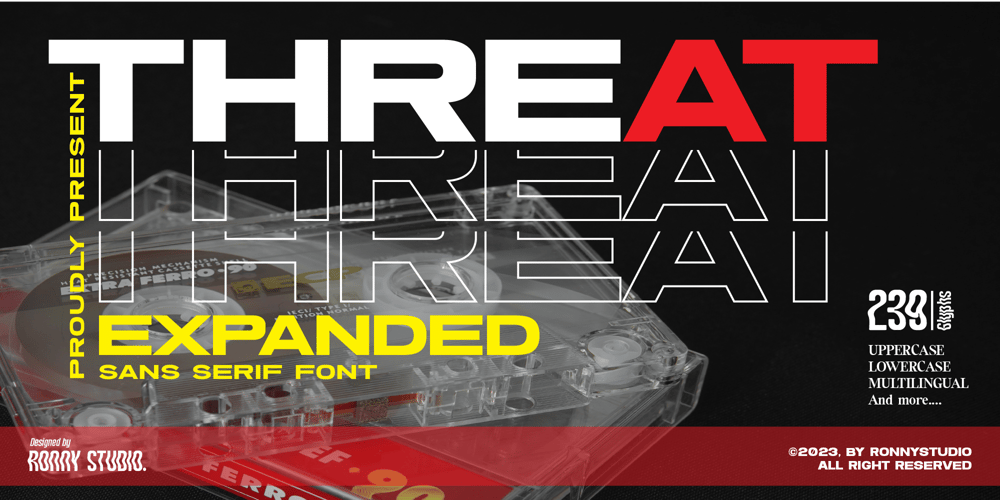
Threat Font Family was designed by Rony Rizki Jaya and published by Ronny Studio. Threat contains 1 styles and family package options. Threat is an all caps font that has a very bold body, but still has high contrast. This font looks very modern when paired with contrasting design colors. This font is impressive and features a clean and elegant font, professionally shaped, and as a result, it will easily match a variety of creations that require a different touch. Add it with confidence to your projects, and you’ll love the results. This typeface is perfect for elegant logos, branding, promotions, book covers, magazine layouts, or simply as a stylish text overlay onto any background image.Features :- All Caps- numbers and punctuation- multilingual- Ligature- alternates- PUA encodedPlease contact us if you have any questions. Enjoy Crafting and thanks for supporting us! :)Thank you